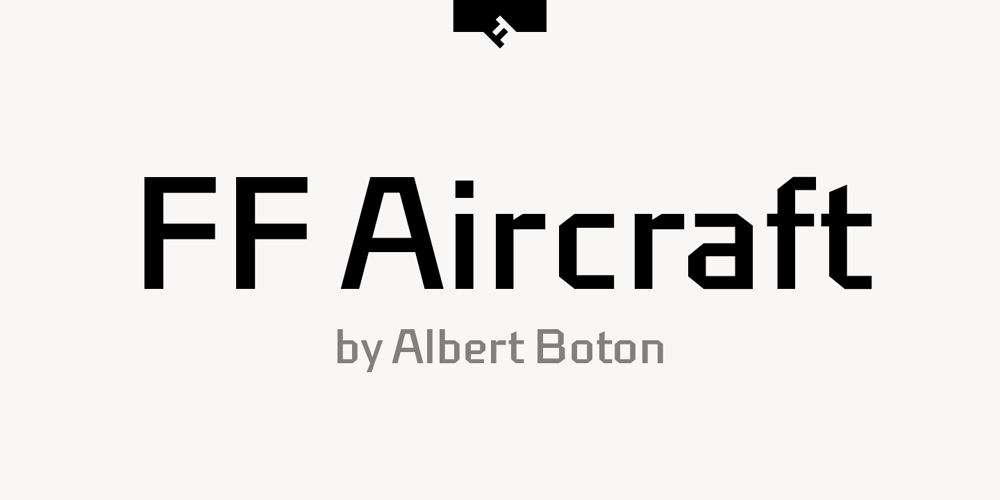
FF Aircraft
FF Aircraft font
FF Aircraft Font Family was designed by Albert Boton and published by FontFont. FF Aircraft contains 1 styles and family package options. French type designer Albert Boton created this display FontFont in 2002. The font is ideally suited for advertising and packaging, music and nightlife as well as sports. FF Aircraft provides advanced typographical support with features such as ligatures, alternate characters, and case-sensitive forms. It comes with a complete range of figure set options – oldstyle and lining figures, each in tabular and proportional widths.